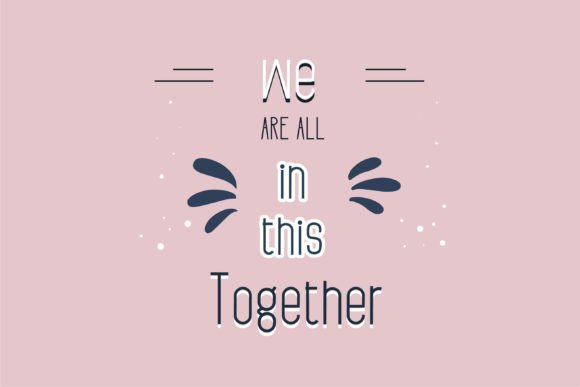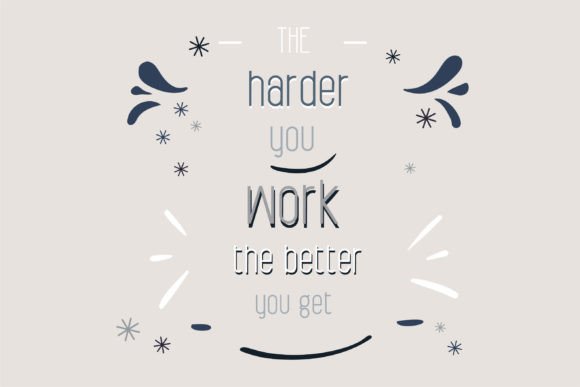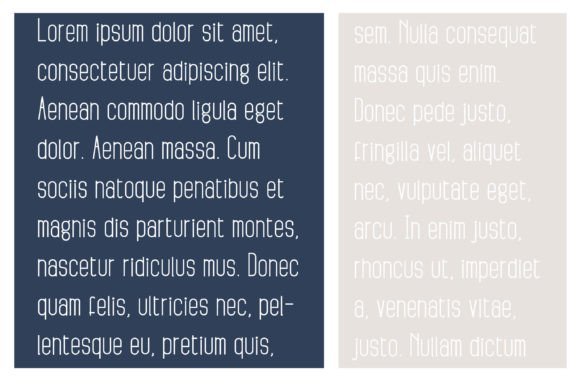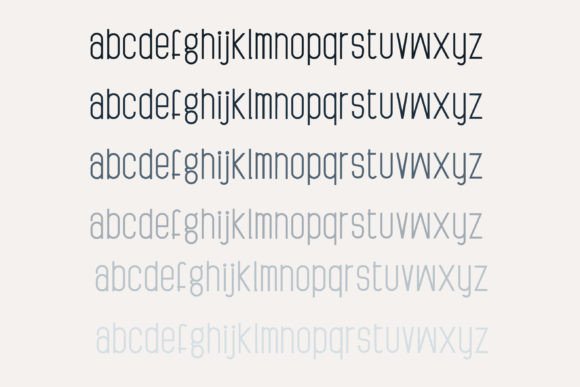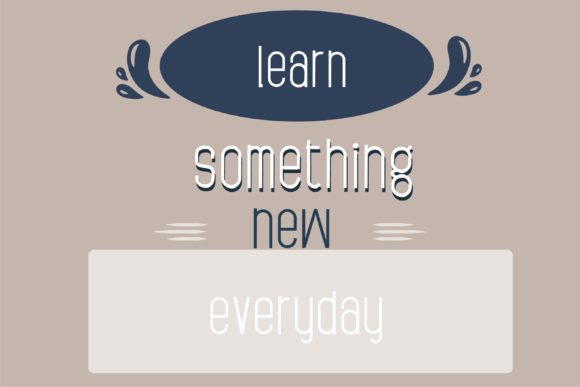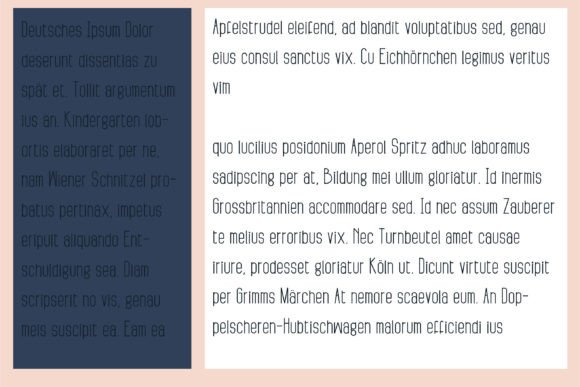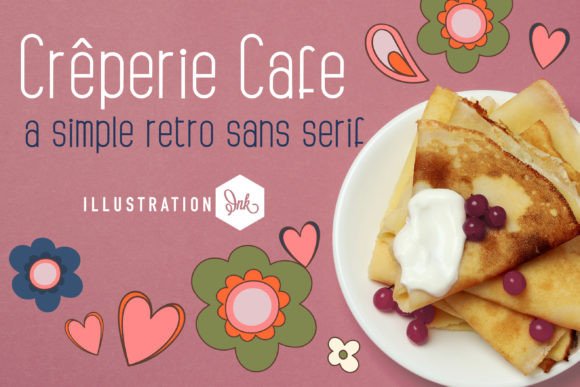
Introducing Creperie Cafe Font: Elevate Your Craft with a Casual Sans Serif Style
In the world of design, the right font can make all the difference. It can elevate your craft, make your product stand out from the competition, and convey your brand’s personality. If you’re a designer or crafter looking for a font that exudes a casual and approachable vibe, look no further than Creperie Cafe. This sans serif font is designed to enhance your craft with little effort, giving you a professional and stylish look that’s sure to impress.
What is Creperie Cafe Font?
Creperie Cafe is a casual sans serif font that’s perfect for designers and crafters who want to add a touch of elegance and sophistication to their work. This typeface is characterized by its clean lines, simple shapes, and rounded edges, giving it a friendly and approachable feel. Whether you’re working on a logo, branding materials, or packaging, Creperie Cafe is the perfect choice.
Key Features of Creperie Cafe Font
• Clean and Simple Design: Creperie Cafe features a clean and simple design that’s perfect for creating a professional and stylish look.
• Sans Serif Style: The font’s sans serif style gives it a modern and sleek feel that’s perfect for designers and crafters who want to create a contemporary look.
• Casual and Approachable: Creperie Cafe has a casual and approachable vibe that’s perfect for brands that want to convey a friendly and welcoming personality.
• Easy to Read: The font is easy to read, even at small sizes, making it perfect for use on a variety of materials, from business cards to billboards.
Benefits of Using Creperie Cafe Font
So why choose Creperie Cafe font for your design project? Here are just a few benefits of using this versatile typeface:
• Enhance Your Craft: Creperie Cafe is designed to enhance your craft with little effort, giving you a professional and stylish look that’s sure to impress.
• Stand Out from the Competition: With its unique and stylish design, Creperie Cafe can help your product stand out from the competition and grab the attention of your target audience.
• Versatile: Creperie Cafe is a versatile font that can be used on a variety of materials, from logos and branding materials to packaging and marketing collateral.
• Easy to Use: The font is easy to use and can be easily integrated into your design workflow.
Who is Creperie Cafe Font Suitable For?
Creperie Cafe font is perfect for designers and crafters who want to create a professional and stylish look. Here are a few examples of who may find this font suitable:
• Graphic Designers: Graphic designers who want to create a modern and sleek look for their clients will love Creperie Cafe.
• Crafters: Crafters who want to add a touch of elegance and sophistication to their products will find Creperie Cafe to be a great choice.
• Small Business Owners: Small business owners who want to create a professional and stylish brand identity will appreciate the versatility and ease of use of Creperie Cafe.
In conclusion, Creperie Cafe font is a versatile and stylish sans serif font that’s perfect for designers and crafters who want to create a professional and stylish look. With its clean design, simple shapes, and rounded edges, Creperie Cafe is sure to enhance your craft with little effort. Whether you’re working on a logo, branding materials, or packaging, Creperie Cafe is the perfect choice. So why wait? Download Creperie Cafe font today and take your design to the next level!